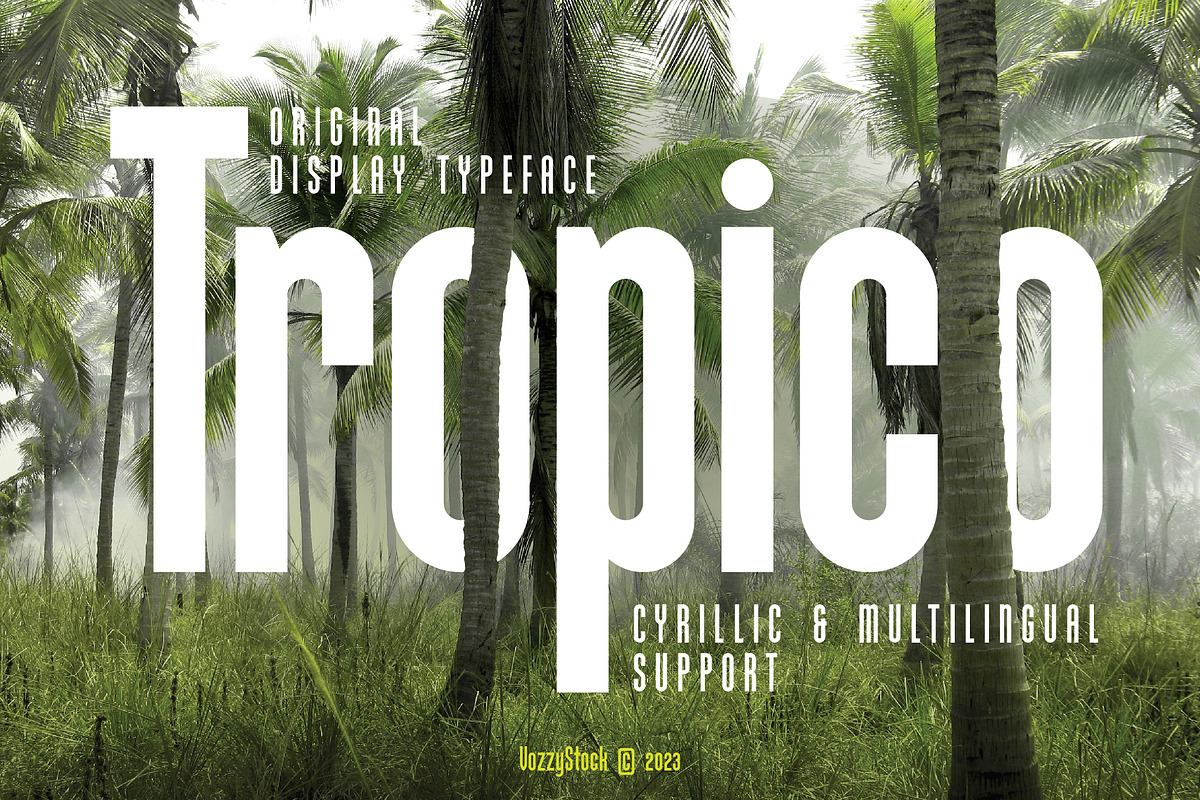
Tropico Free Download
Tropico Font Free Download
Tropico Font Free Download is a vibrant and playful display typeface inspired by tropical vibes, island getaways, and endless summer days. With its bold curves, relaxed flow, and sunny personality, this font is perfect for travel branding, beach party invitations, resort logos, summer apparel, and fun social media graphics.
Whether you’re designing for a juice bar, a surf brand, or a destination wedding, Tropico adds warmth and rhythm to your visual storytelling. It feels like a vacation in every letter. Tropico Font Free Download lets you explore its carefree style in personal projects before purchasing a commercial license.
Bring the sunshine to your designs with Tropico — the font that radiates joy, fun, and that sweet tropical spirit.